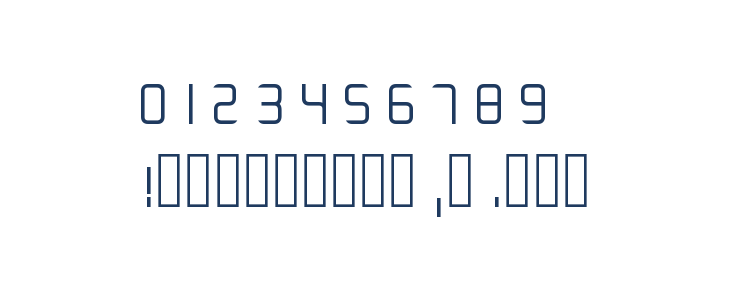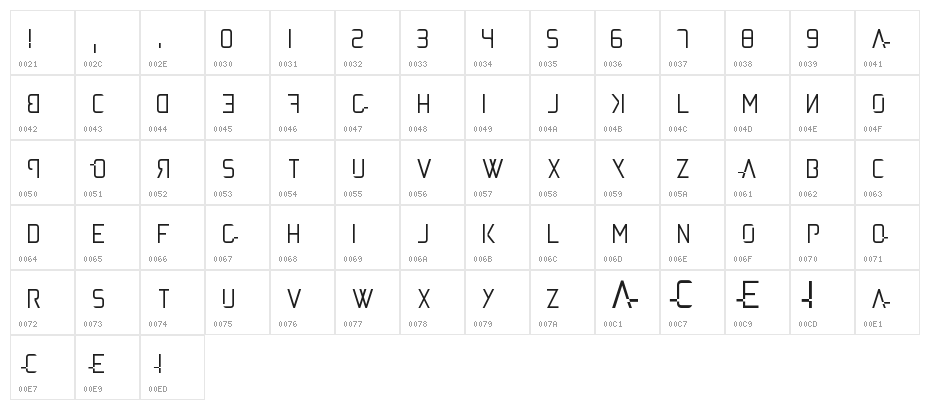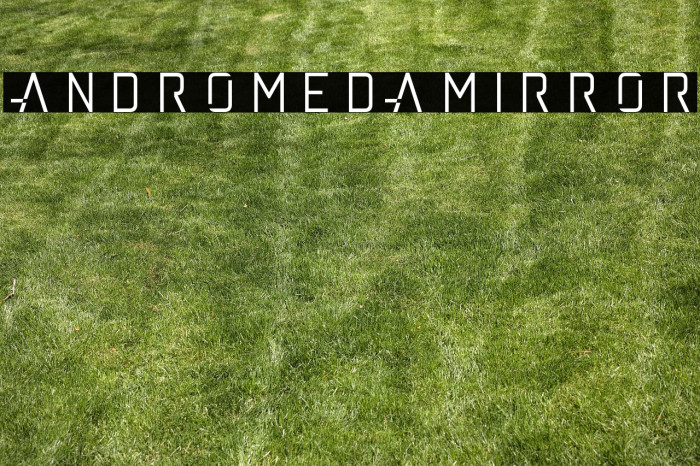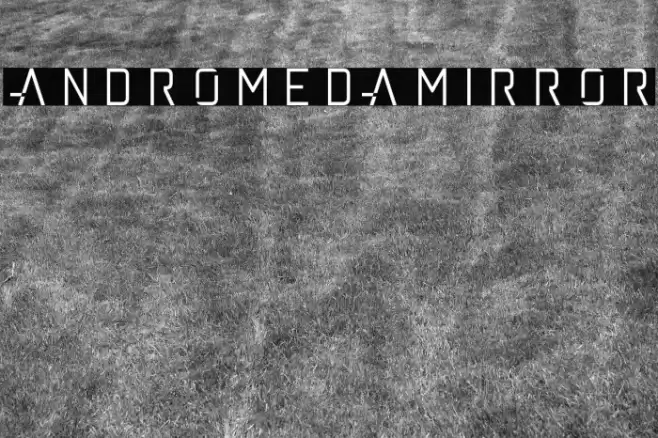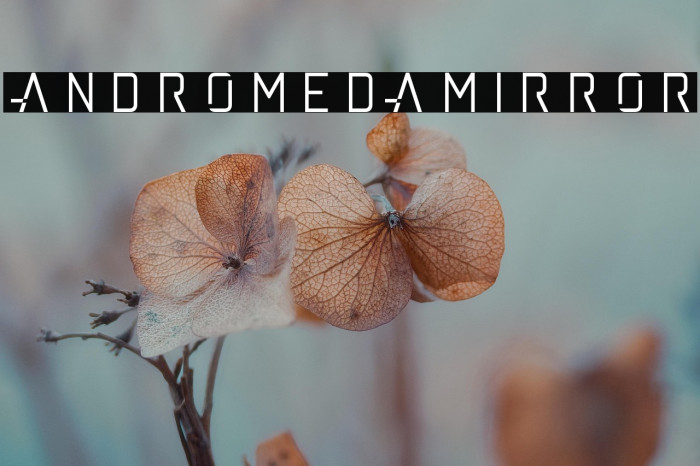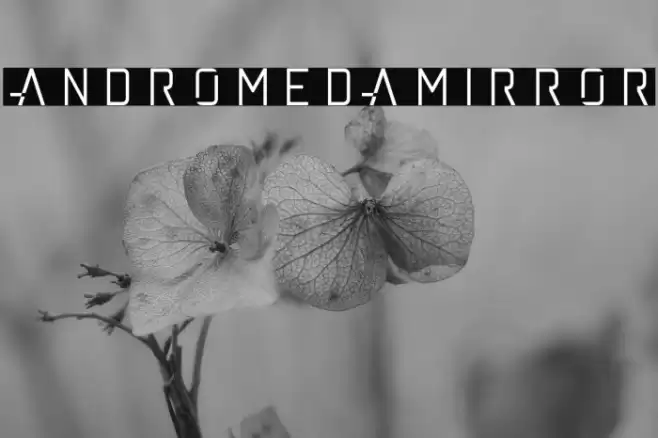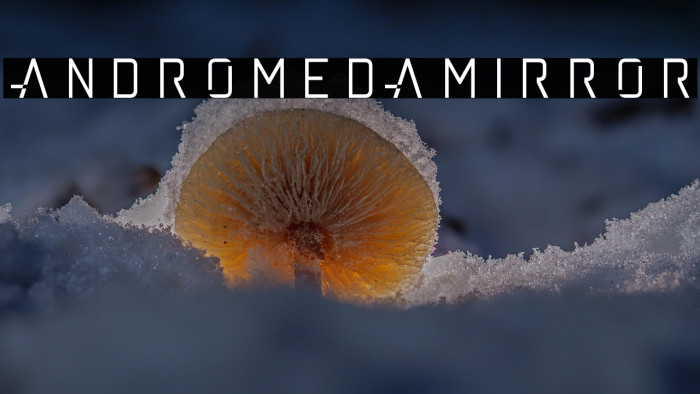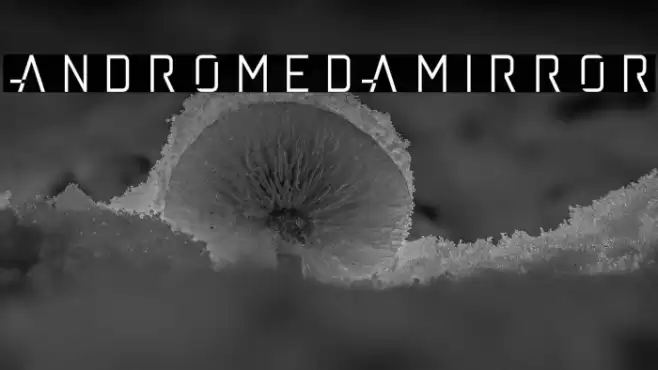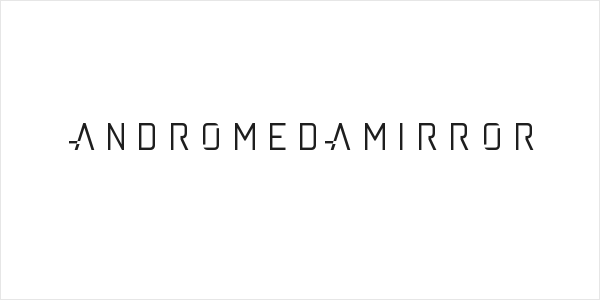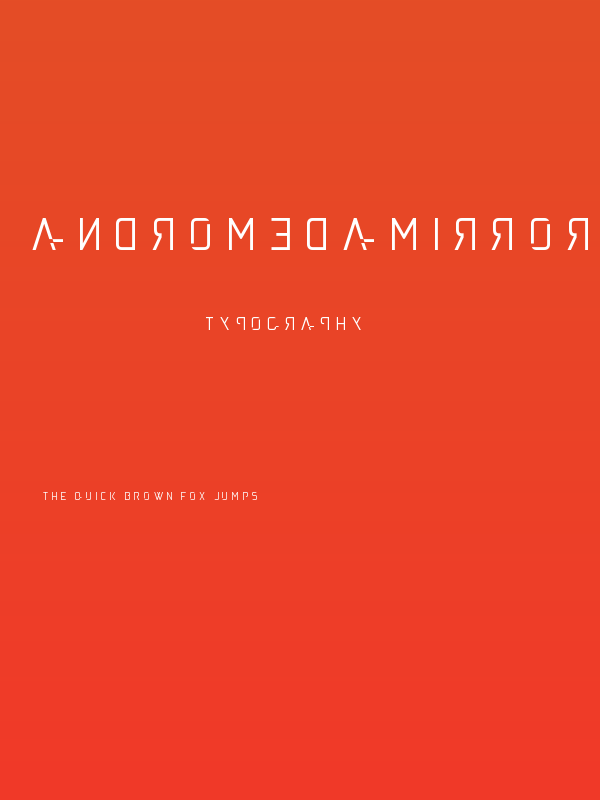
andromedamirror Font
This font features a futuristic and geometric design, characterized by its clean lines and angular shapes. The uppercase and lowercase letters maintain a consistent height, creating a uniform appearance. The numerals are distinct and align well with the overall style, offering a modern and sleek look. Special characters are integrated seamlessly, enhancing the font's versatility. The design is minimalistic yet impactful, making it suitable for contemporary projects that require a touch of modernity and sophistication.
| Proposed Projects | Ideal for technology branding, sci-fi themed projects, modern web design, and innovative product packaging. |